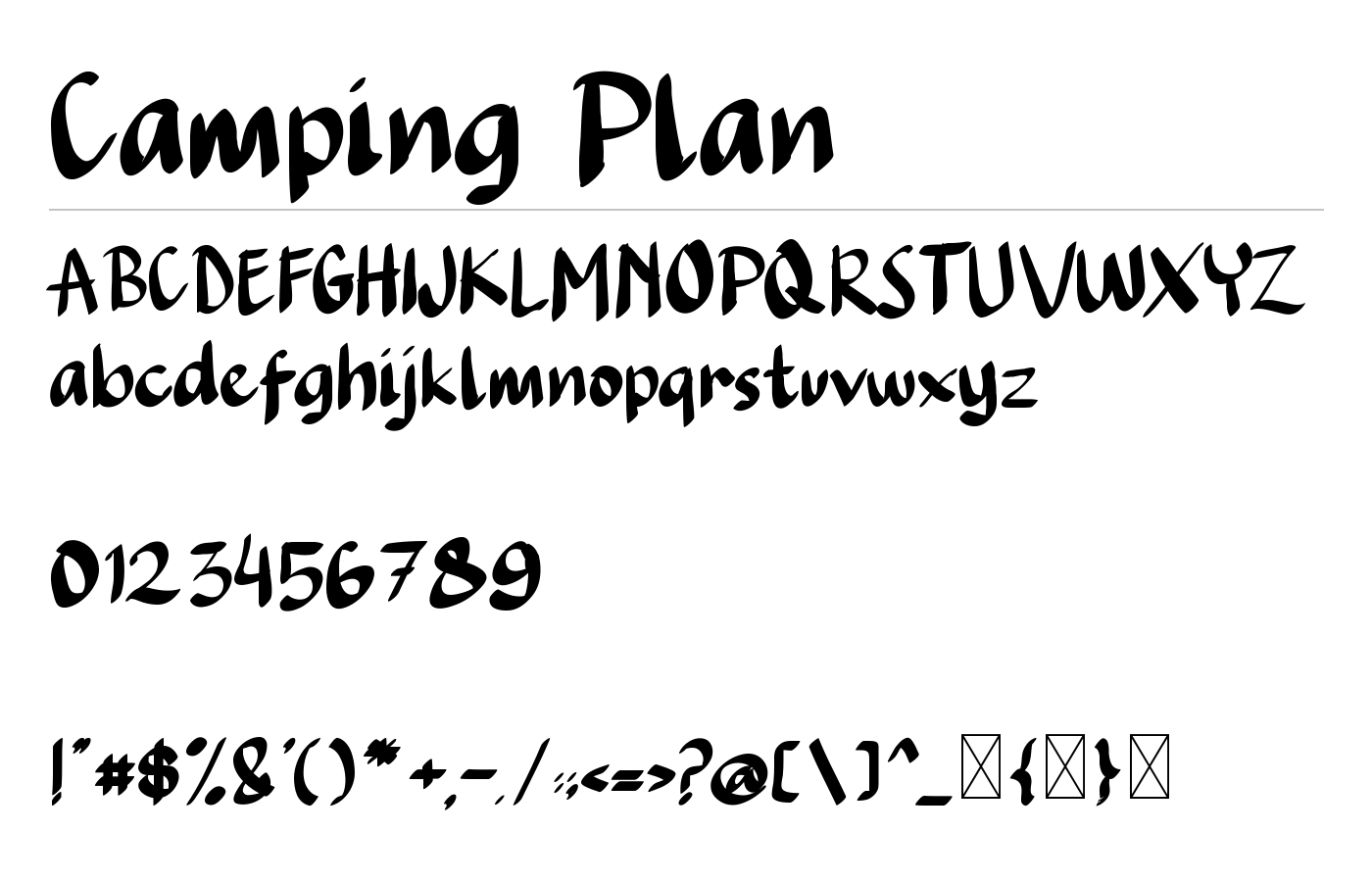
Camping Plan is a lively handwritten sans serif font that combines playful, slightly irregular strokes with a bold weight, giving it a friendly and approachable feel. Its casual brush-like style and spirited letterforms make it ideal for creative projects that need a relaxed, adventurous vibe, such as outdoor-themed branding, posters, or informal invitations. This font works best in headlines and display text, where its unique personality can shine and engage the viewer.
Camping Plan Font